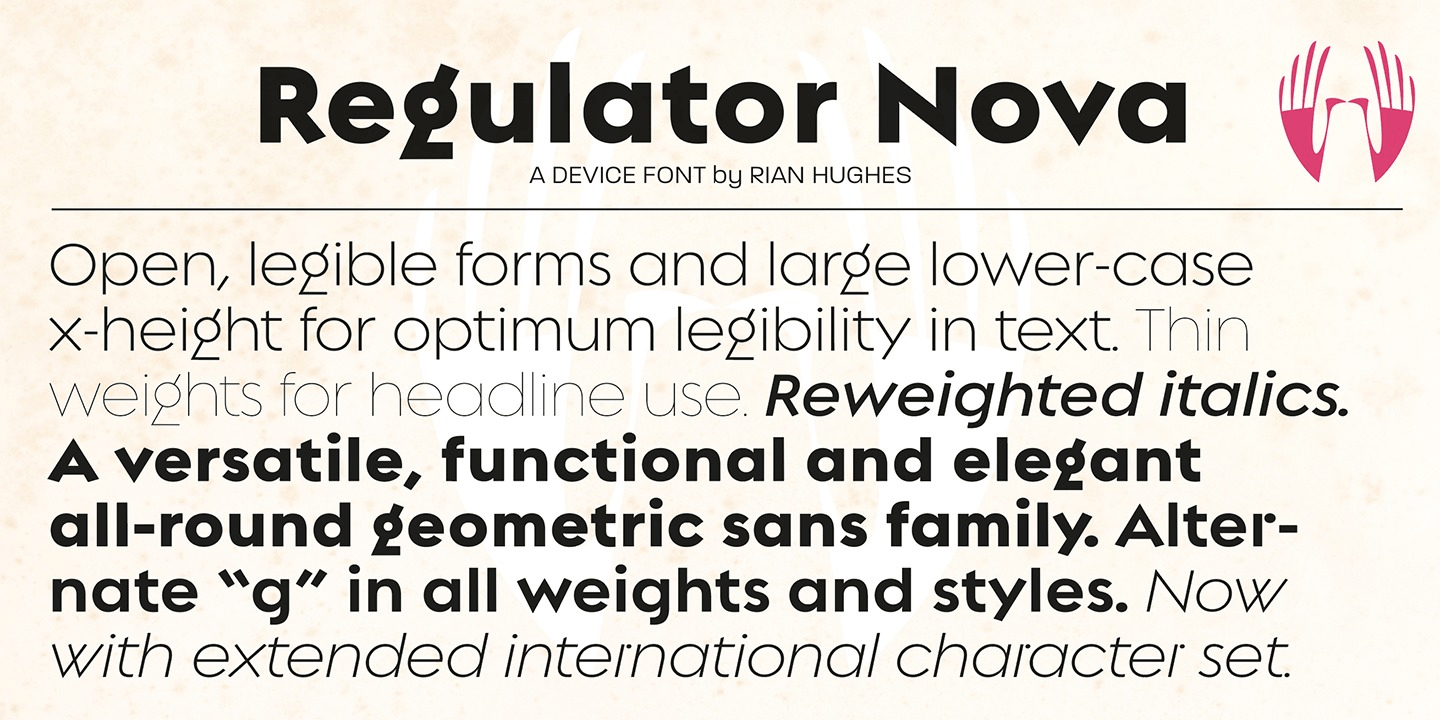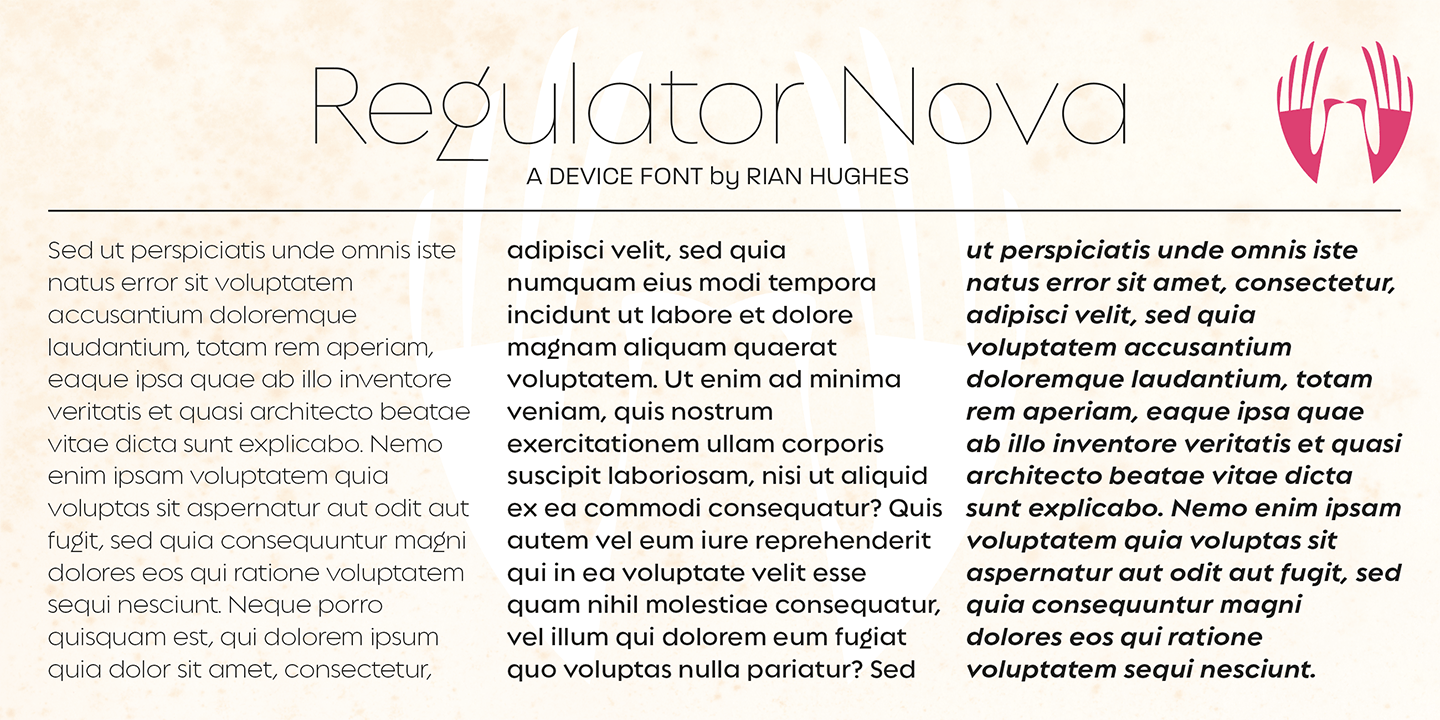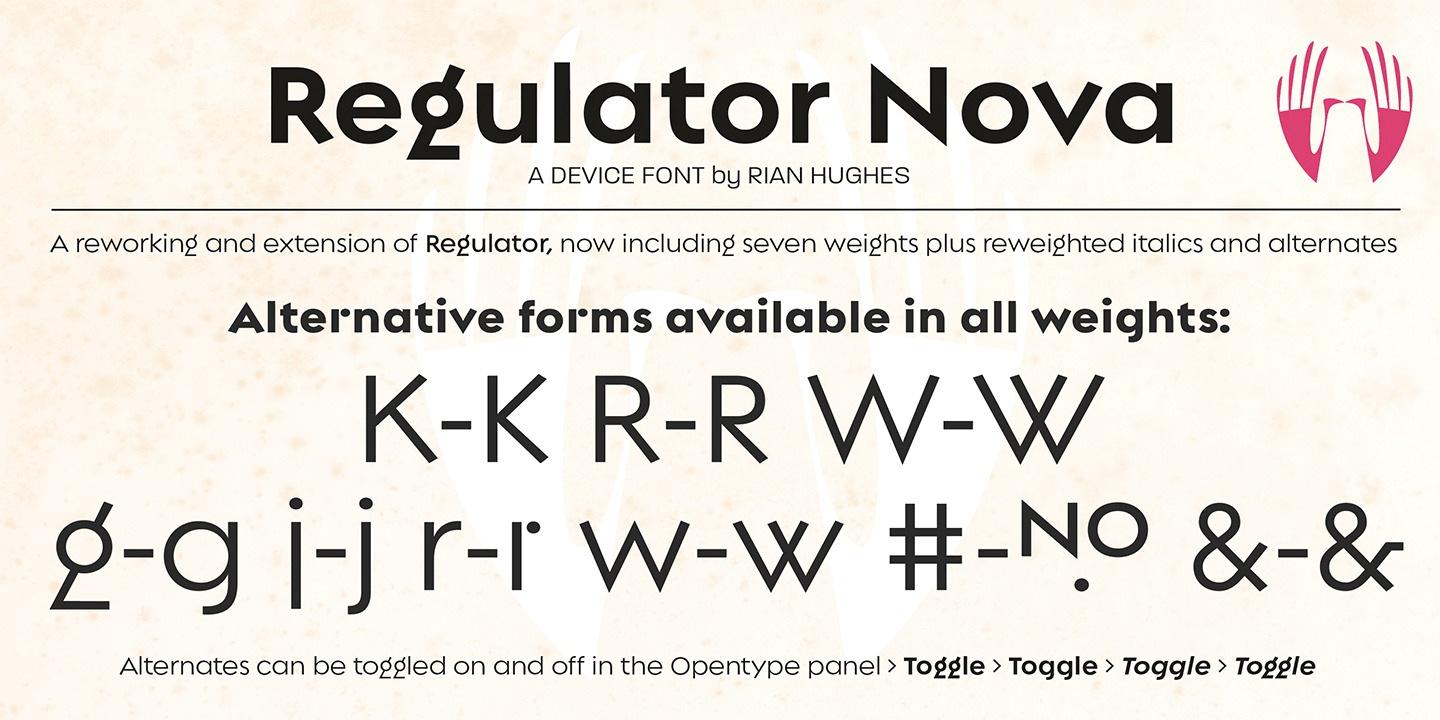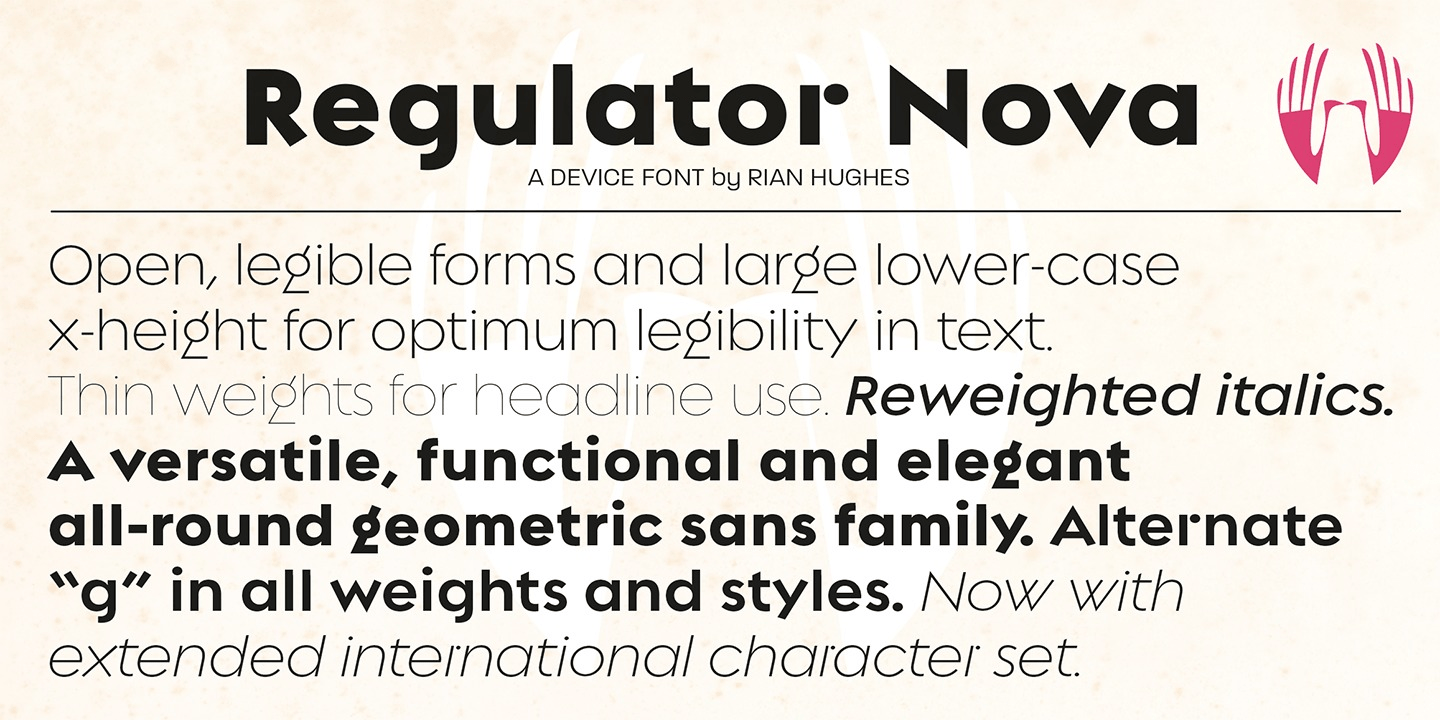
About Regulator Nova
A high lower-case x-height geometric sans with open counters, Regulator Nova is extremely legible at text sizes and in extended settings while the range of weights also make it suitable for headlines. The stoke terminals are all cut at close to 90 degrees,…